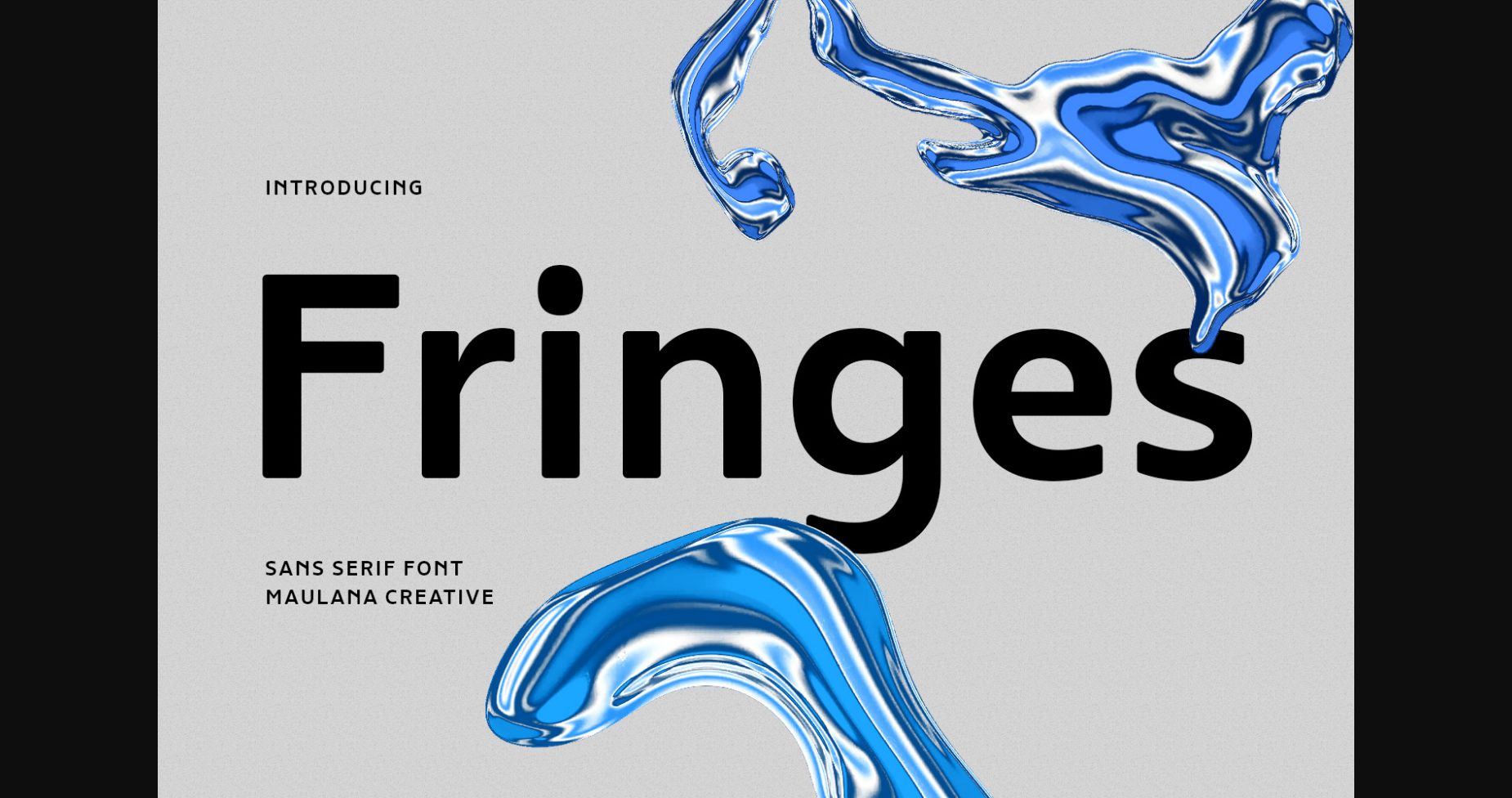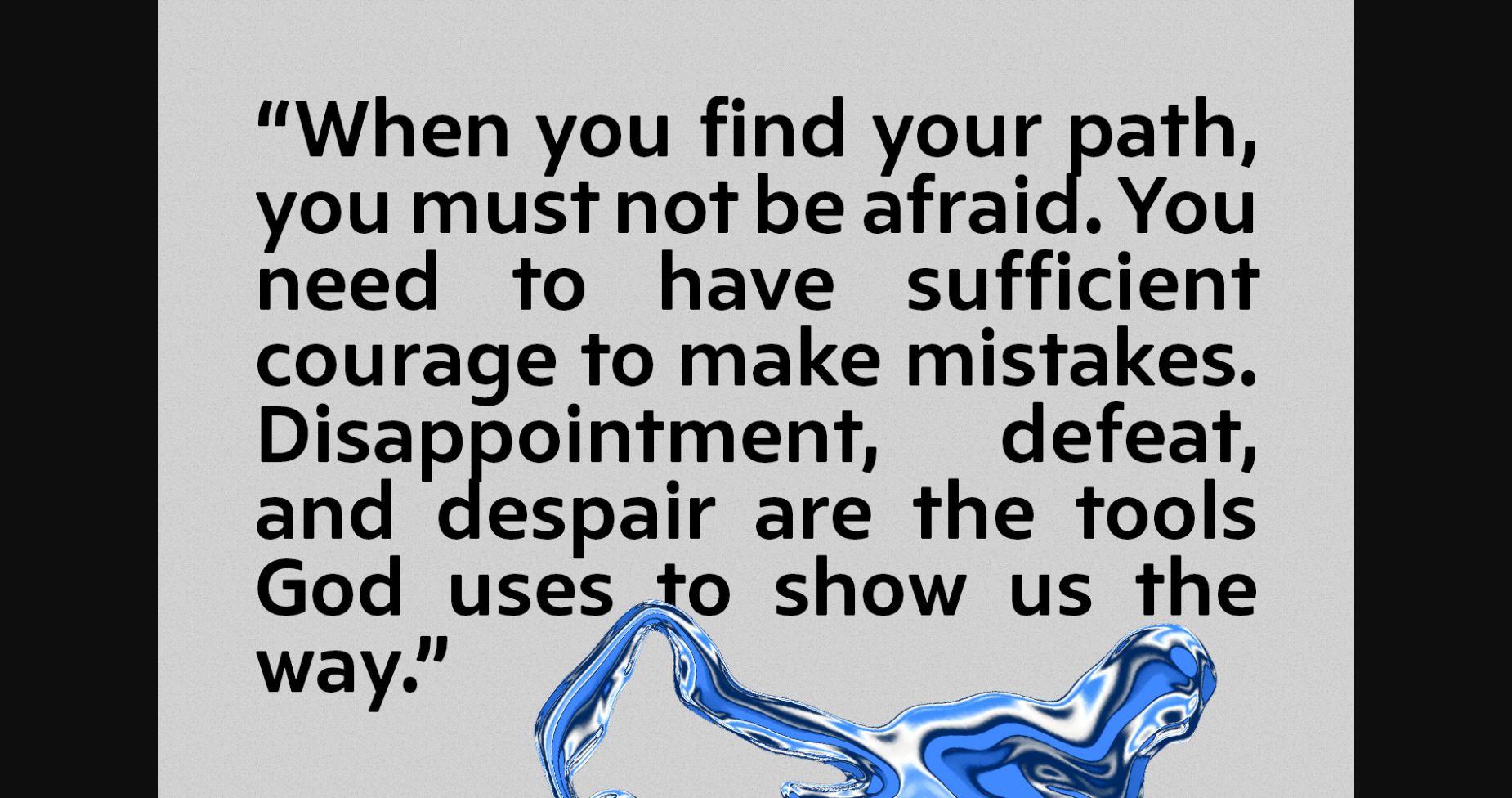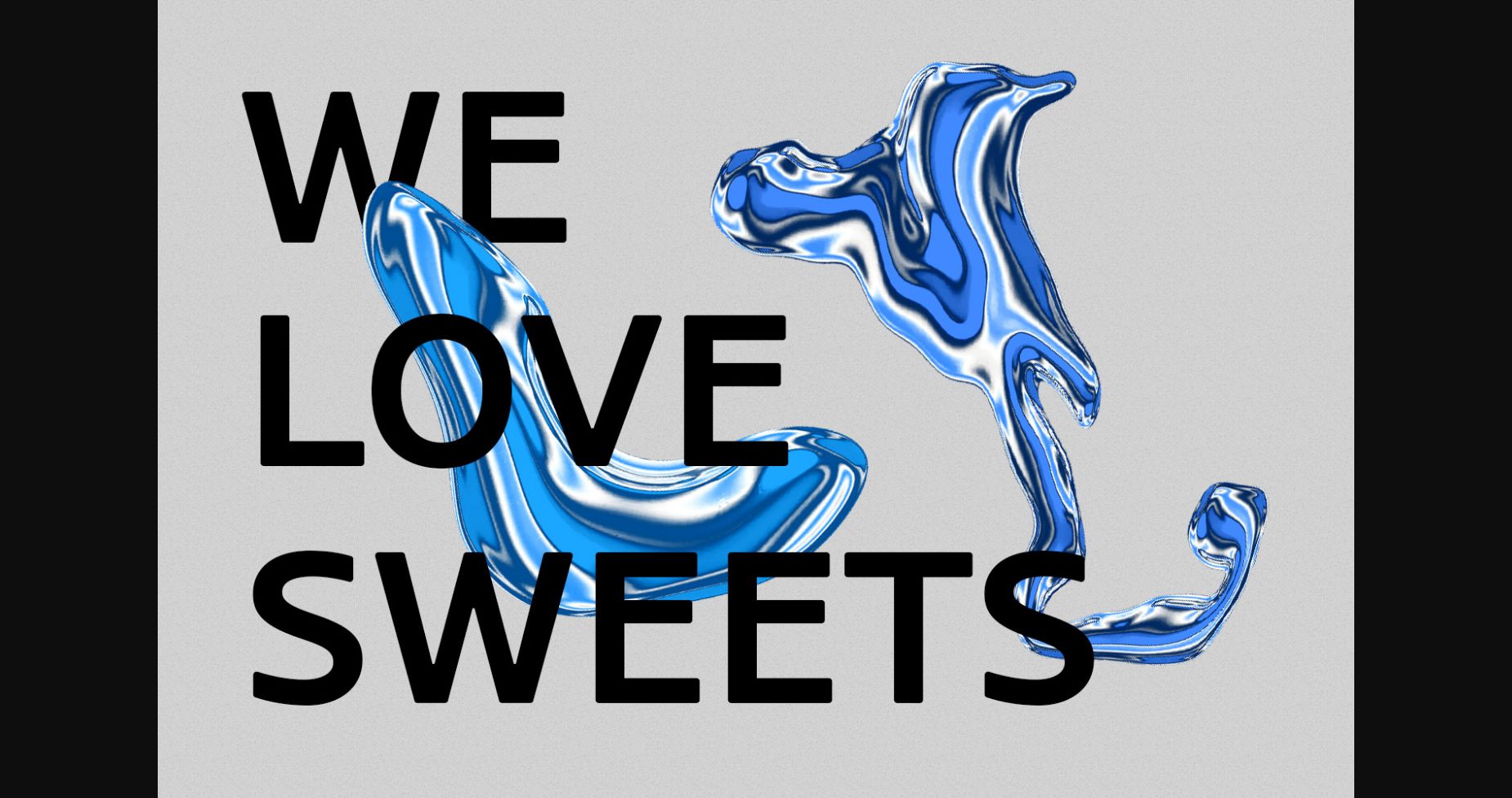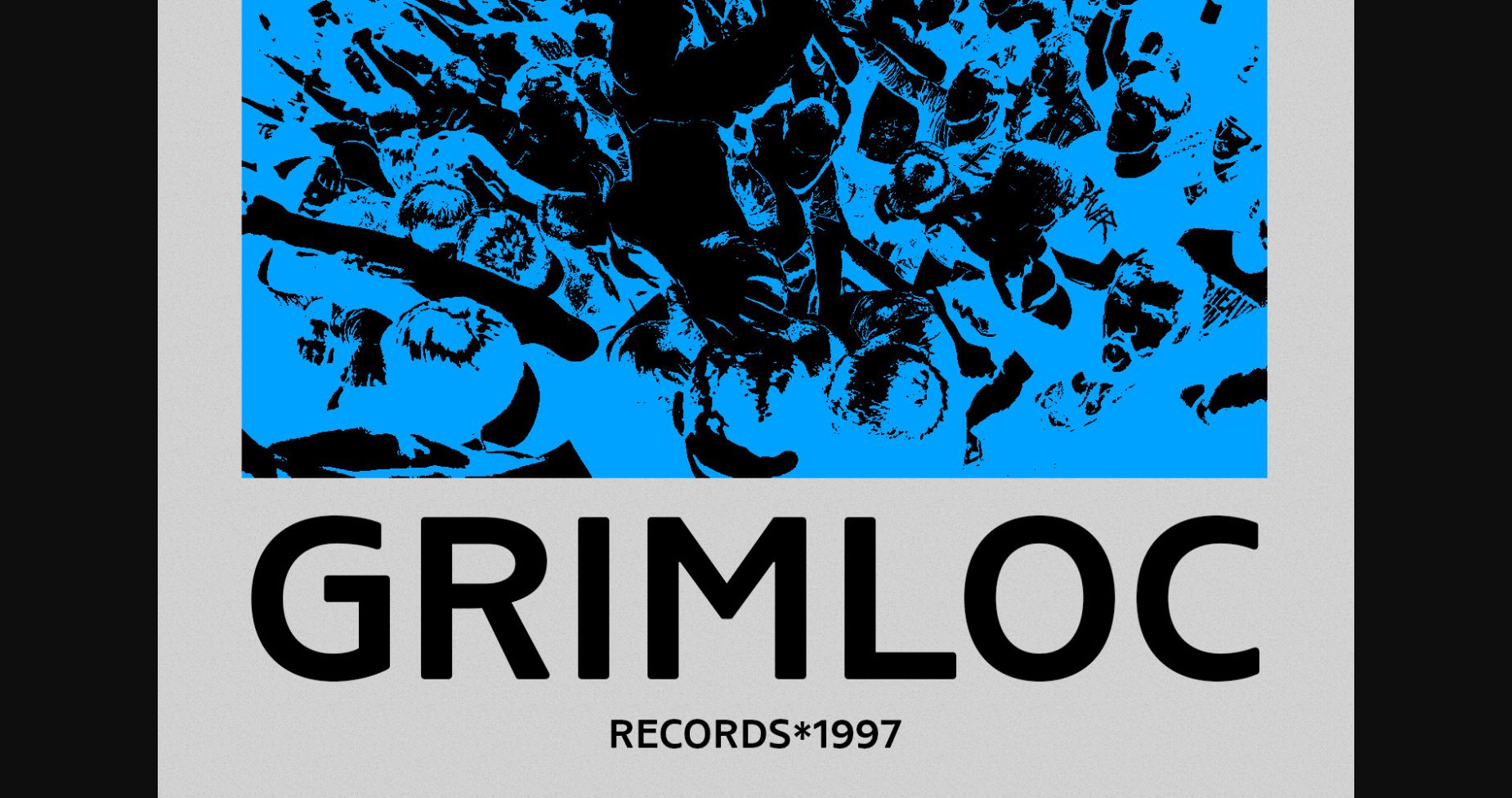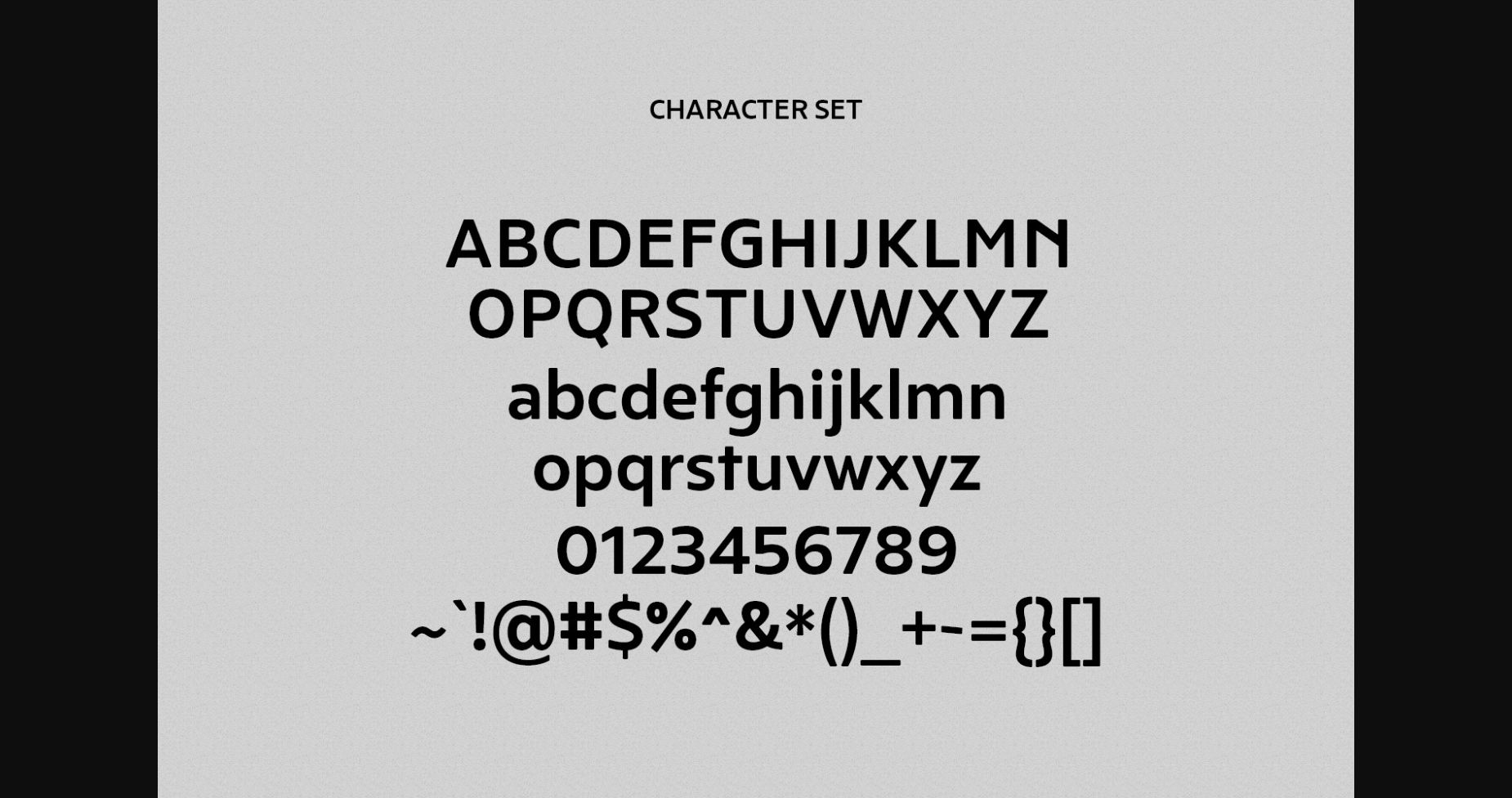
About Fringes Font
Fringes Font is a classic historical early sans serif font. Regular stroke, fun character with a bit of ligature and alternates. To give you extra creative work. This font is good for logo design, Social media, Movie Titles, Books Titles, short text even long text letters, and good for your secondary text font with script or serif. Make a stunning work with Fringes font.